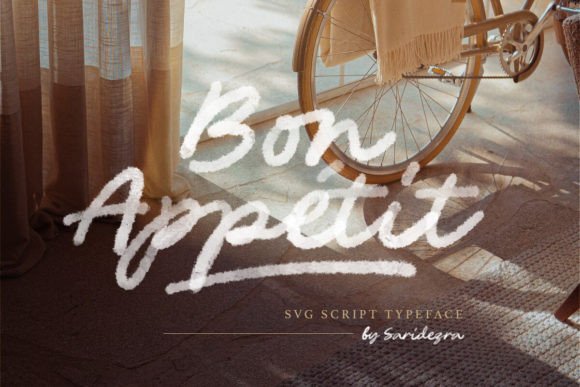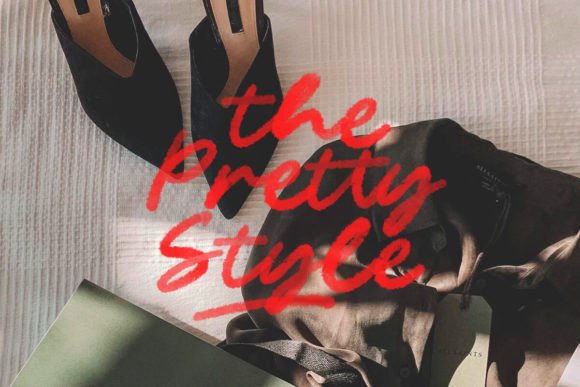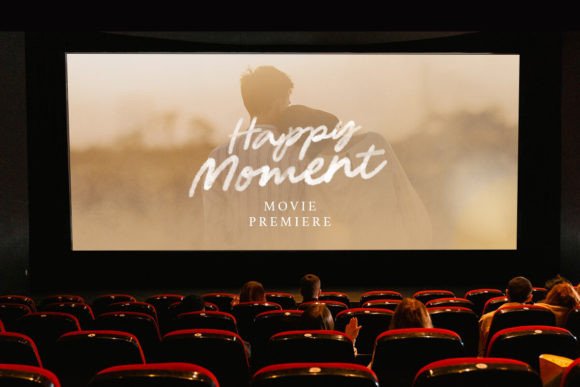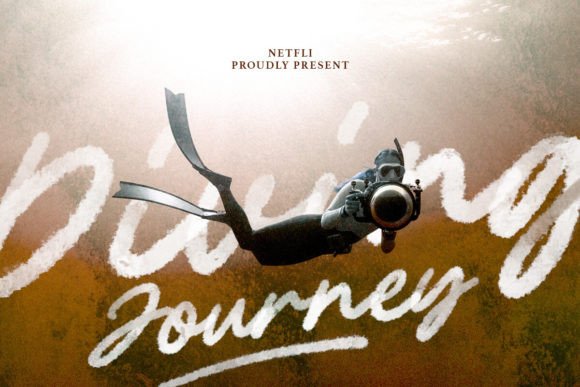
Bon Appetit Font
Discover the charm of Bon Appetit Font. This font is a perfect blend of modern aesthetics and classic appeal. Bon Appetit is a script font that have transperancy watercolor texture. This font comes with SVG format (SVG OTF) and also with a vector (OTF). With ligatures that will make your design looks more natural and handmade. Use the underline for dramatic looks.
Bon Appetit’s watercolor texture and flowing script lend themselves ideally to projects requiring a touch of handcrafted elegance. It excels in short headlines, invitations, logos for food-related businesses, and packaging design where its artistic quality shines. Avoid using it for large blocks of text or UI elements; its delicate nature makes it less legible in smaller sizes or extended use.
Pair Bon Appetit with a clean sans-serif like Montserrat for contrast and readability in supporting text, or a geometric sans-serif such as Futura for a more modern feel. For a more luxurious aesthetic, consider pairing it with a classic serif like Garamond.
The overall personality of Bon Appetit is romantic and slightly whimsical, yet sophisticated. Its handmade quality conveys authenticity and warmth.